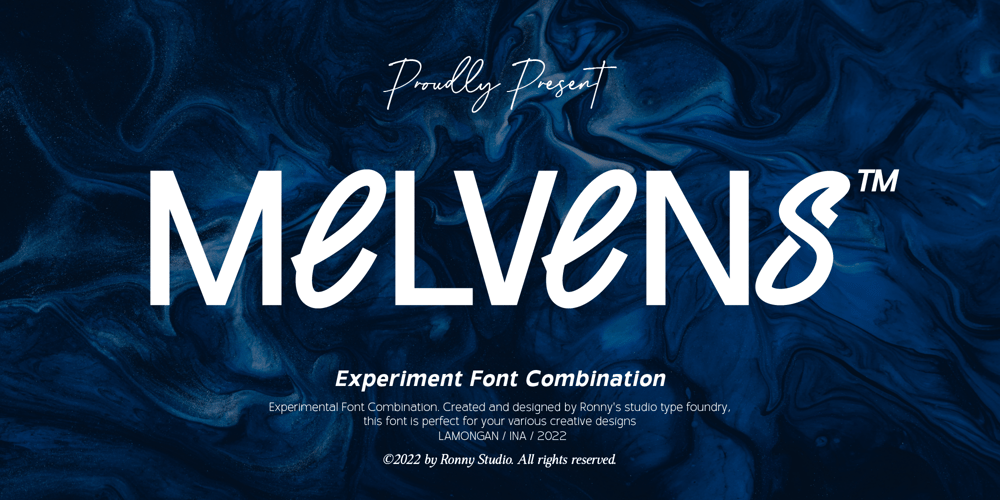
Melvens Font Family was designed by Rony Rizki Jaya and published by Ronny Studio. Melvens contains 1 styles and family package options. Melvens is an experimental combination font. includes 2 fonts that have very different styles and appearances, but make this font look unique. This font is perfect for your design needs such as poster design, logo design, branding, social media design, books, magazines, etc.